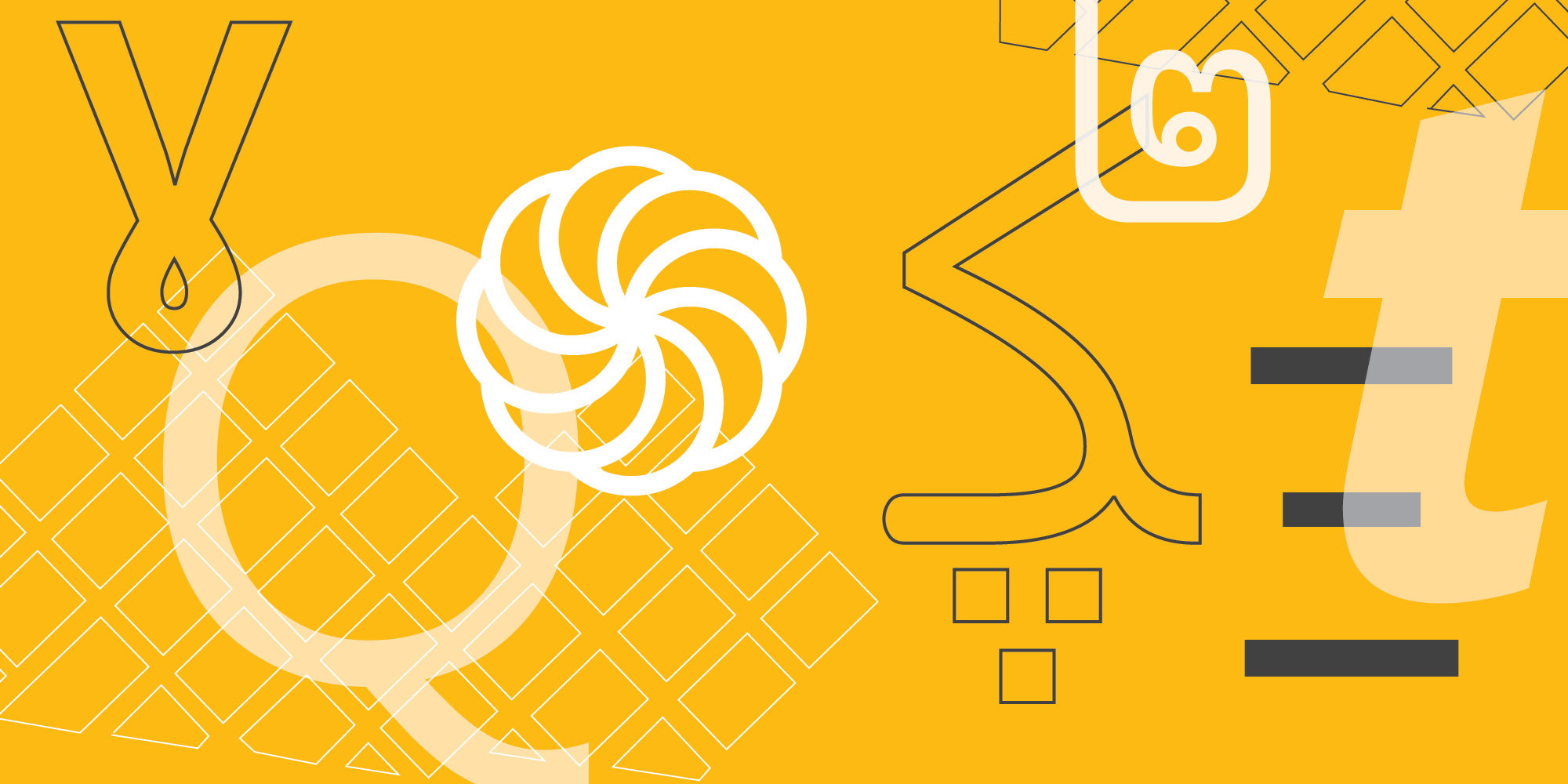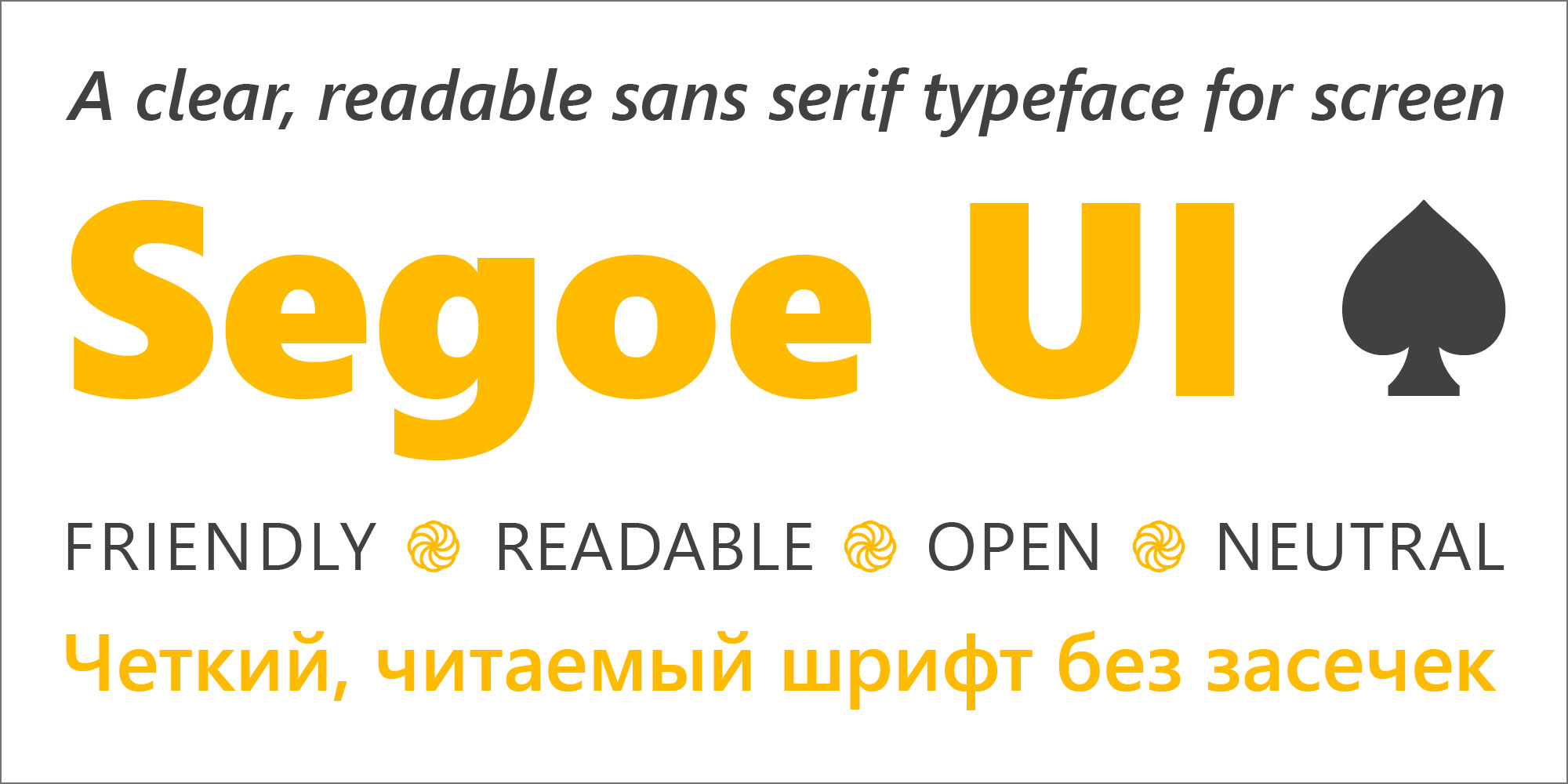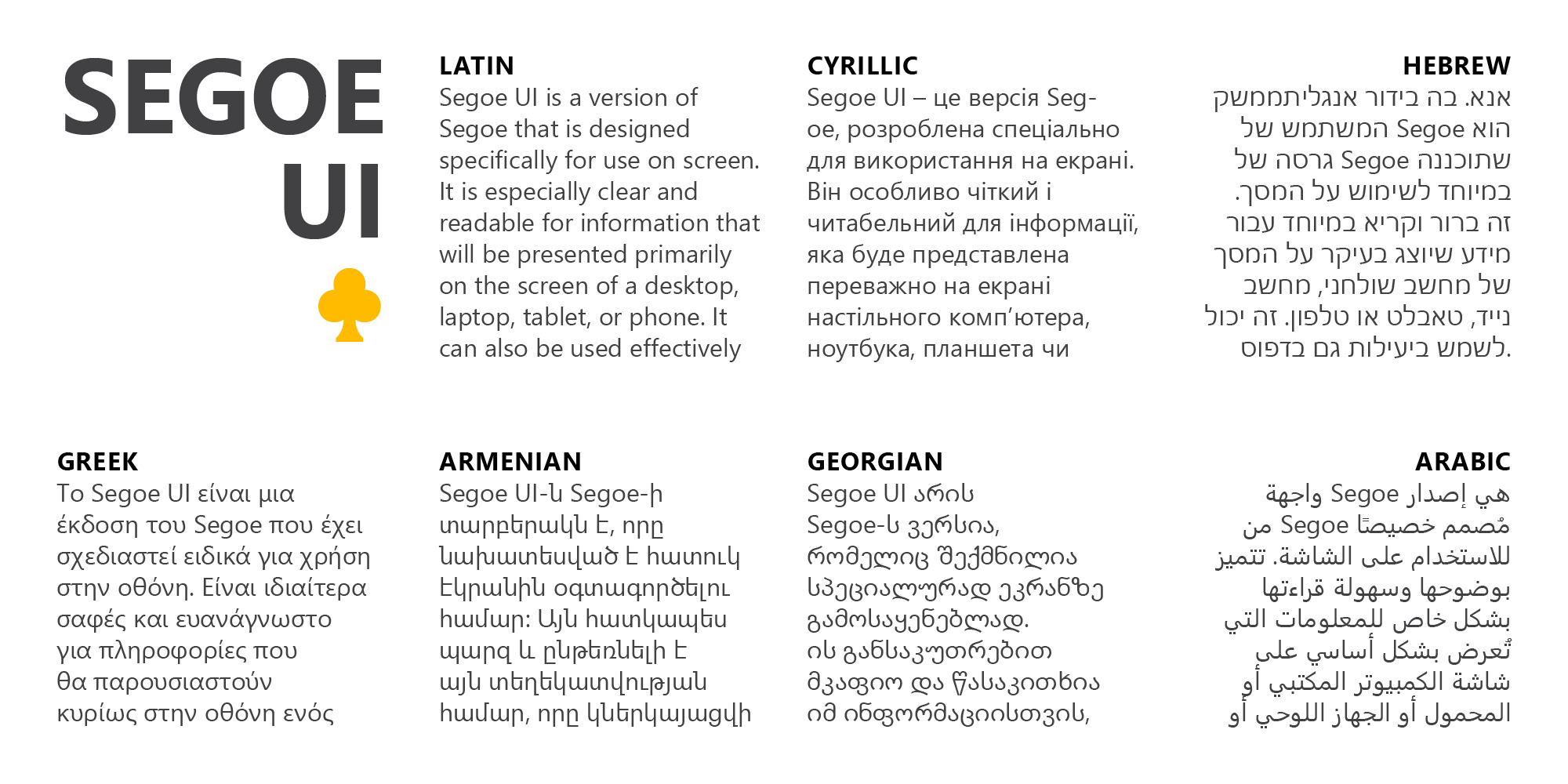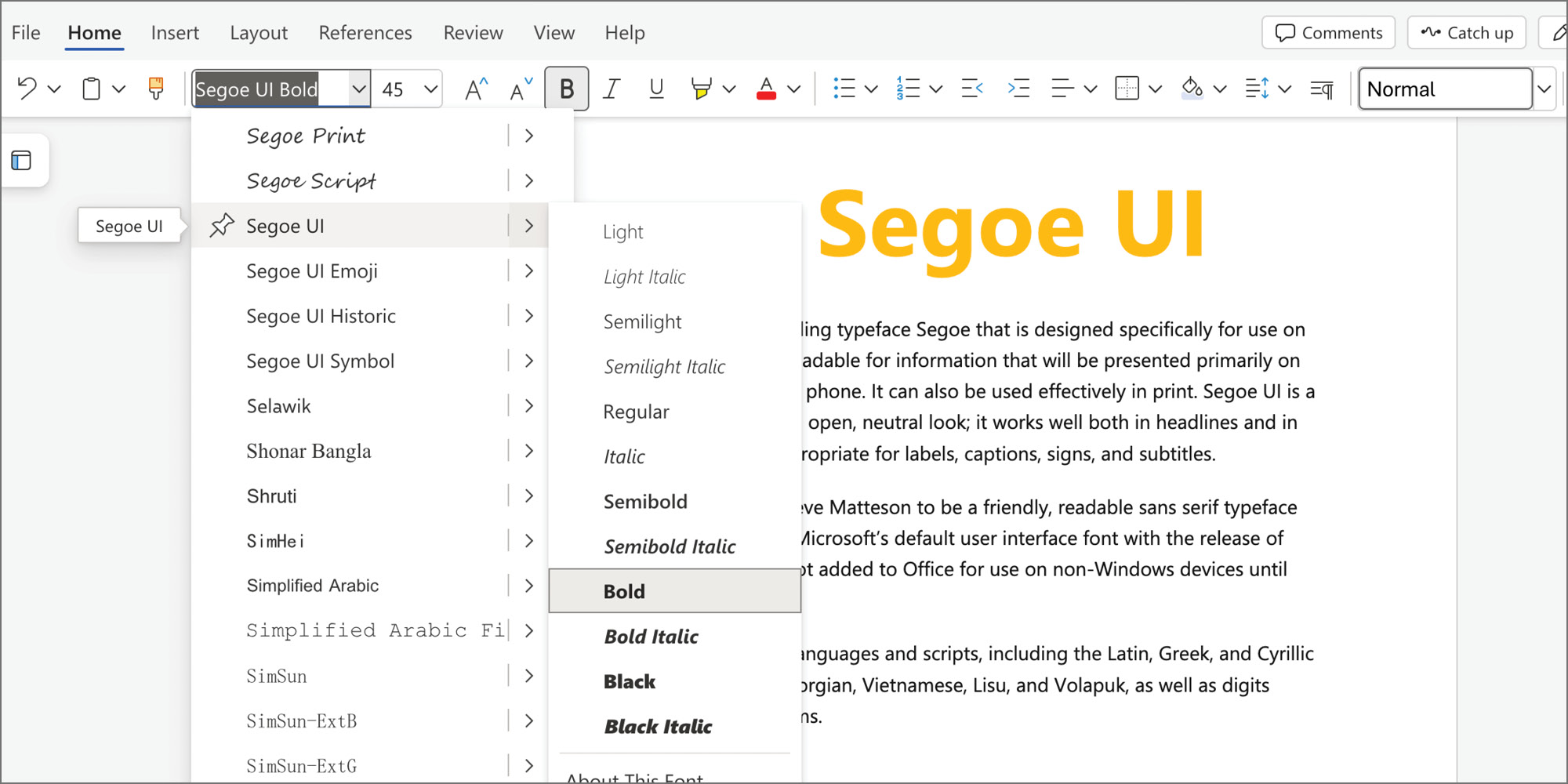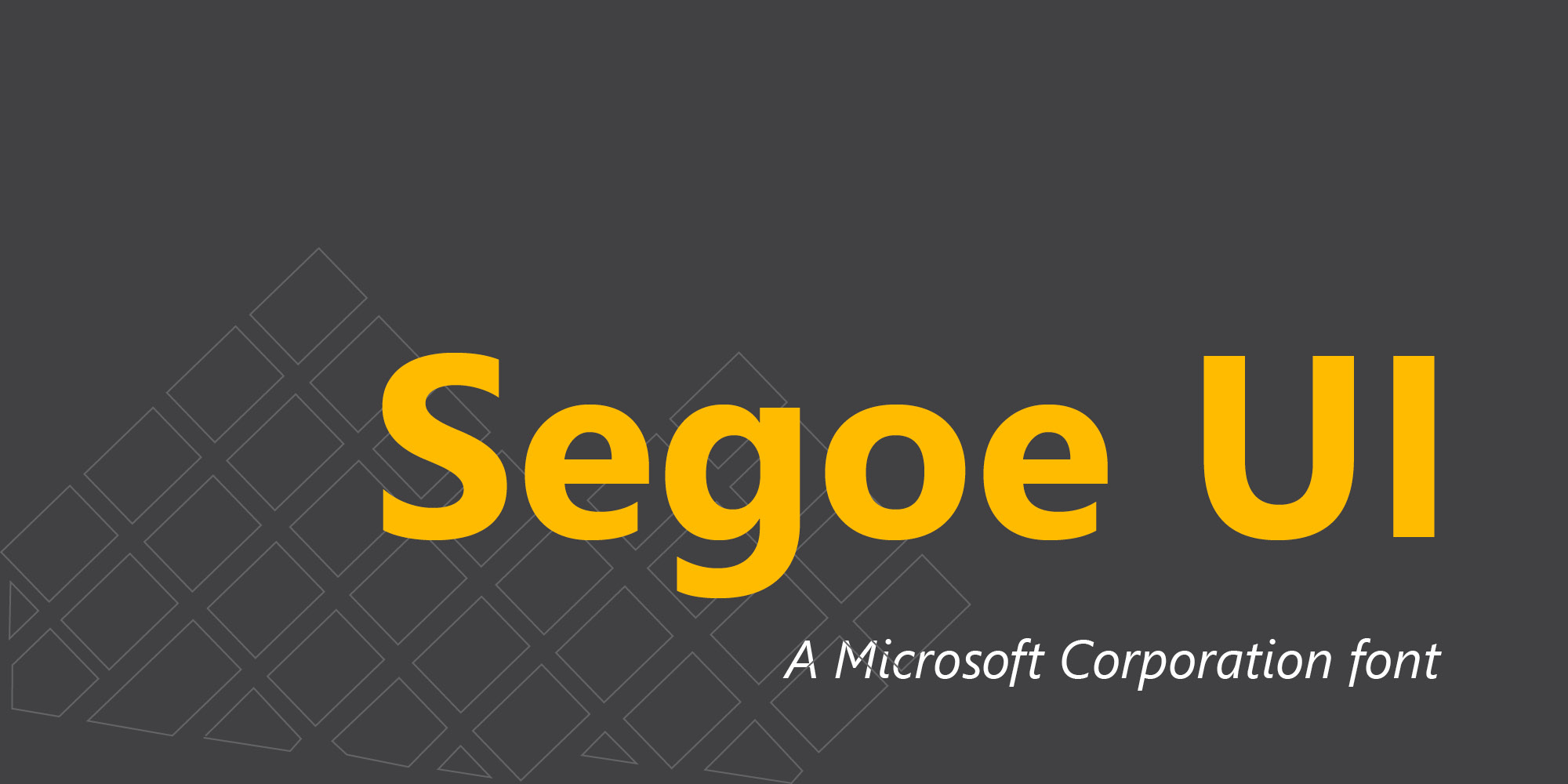
Segoe UI is a version of Microsoft's branding typeface Segoe that is designed specifically for use on screen. Segoe UI is especially clear and readable for information that will be presented primarily on the screen of a desktop, laptop, tablet, or phone. It can also be used effectively in print. Segoe UI is a clear, readable sans serif typeface with an open, neutral look; it works well both in headlines and in short passages of text. It is especially appropriate for labels, captions, signs, and subtitles. Segoe was designed by type designer Steve Matteson to be a friendly, readable sans serif typeface for all corporate applications. It became Microsoft's default user interface font with the release of Windows Vista in 2007, however it was not added to Office for use on non-Windows devices until 2022. Segoe UI supports a very wide range of languages and scripts, including the Latin, Greek, and Cyrillic alphabets, Arabic, Hebrew, Armenian, Georgian, Vietnamese, Lisu, and Volapuk, as well as digits (number symbols) for most writing systems.
Styles & Weights | Segoe UI Light Italic Segoe UI Semilight Italic Segoe UI Italic Segoe UI Semibold Italic Segoe UI Bold Italic Segoe UI Black Italic |